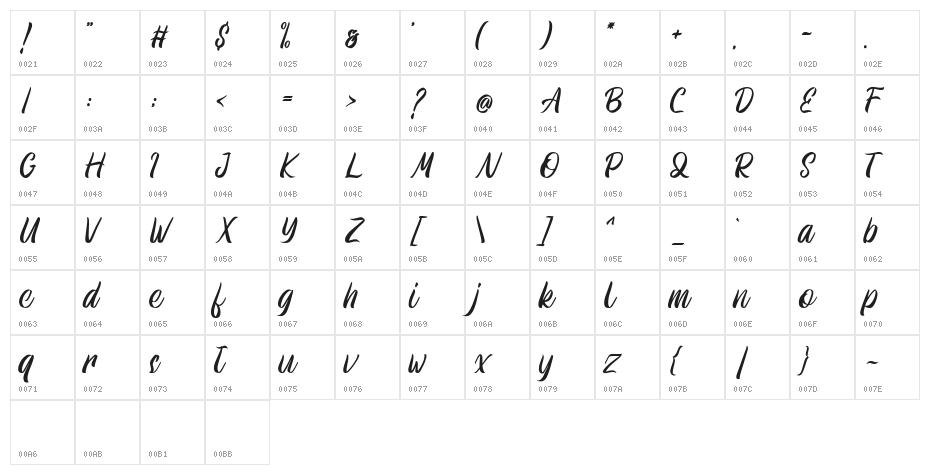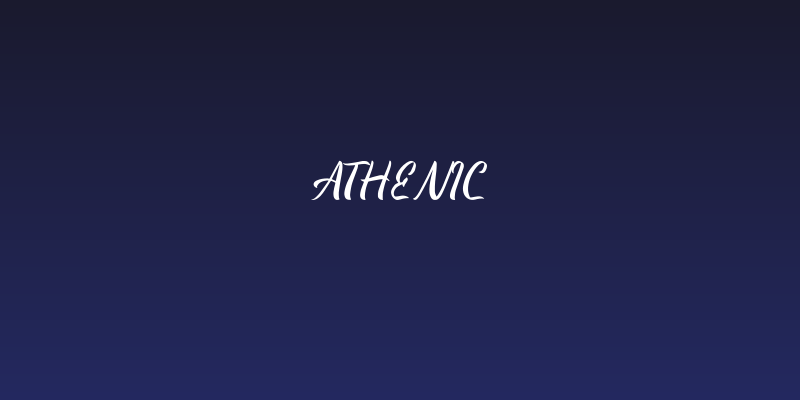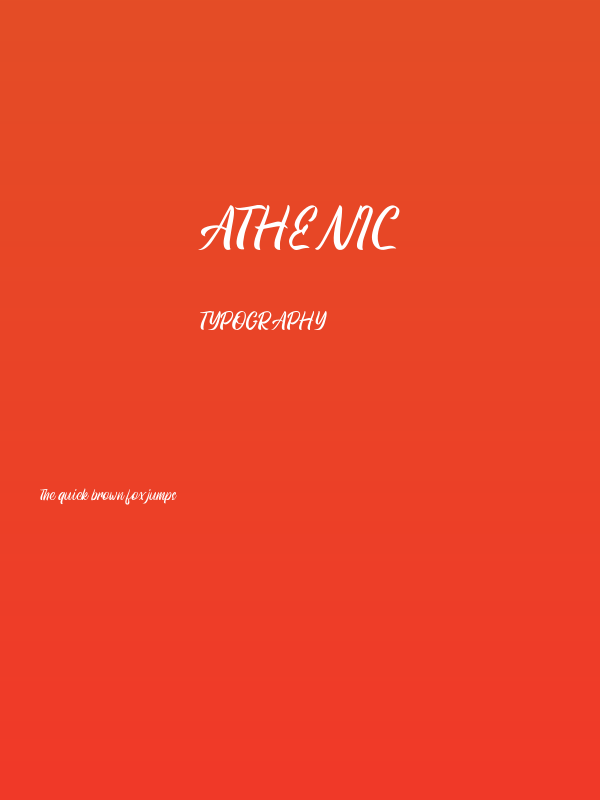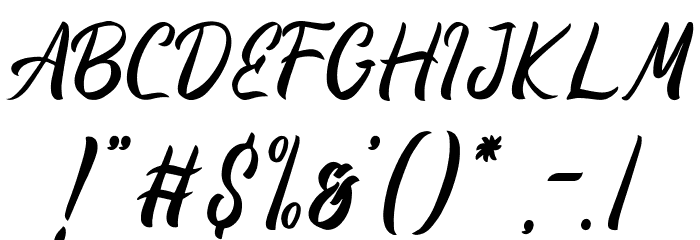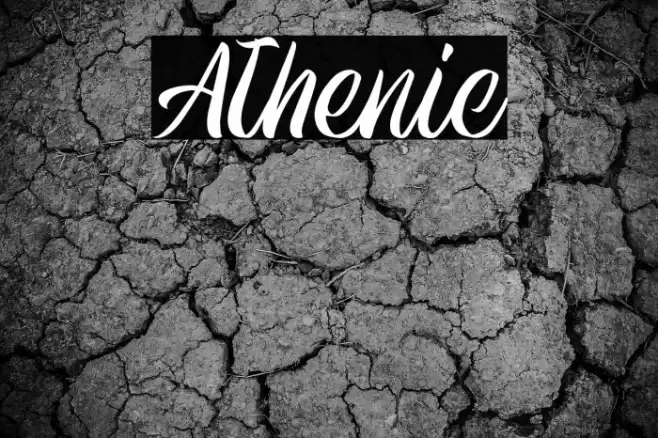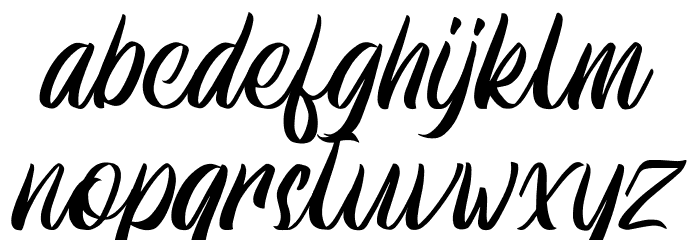
Athenic Font
Athenic Description
This font features a dynamic and flowing script style, characterized by its elegant and cursive letterforms. The strokes are smooth and connected, giving it a handwritten appearance. The uppercase letters are bold and slightly slanted, while the lowercase letters maintain a consistent flow with a touch of flair in their curves. The numerals and special characters are designed to complement the overall style, maintaining the same fluidity and elegance. This font exudes a sense of sophistication and creativity, making it suitable for various artistic and formal applications.
| Overall Style | Elegant, Artistic |
| Use Case | Logos, Invitations, Branding |
| Proposed Projects | Ideal for wedding invitations, branding, logo design, and elegant stationery. |